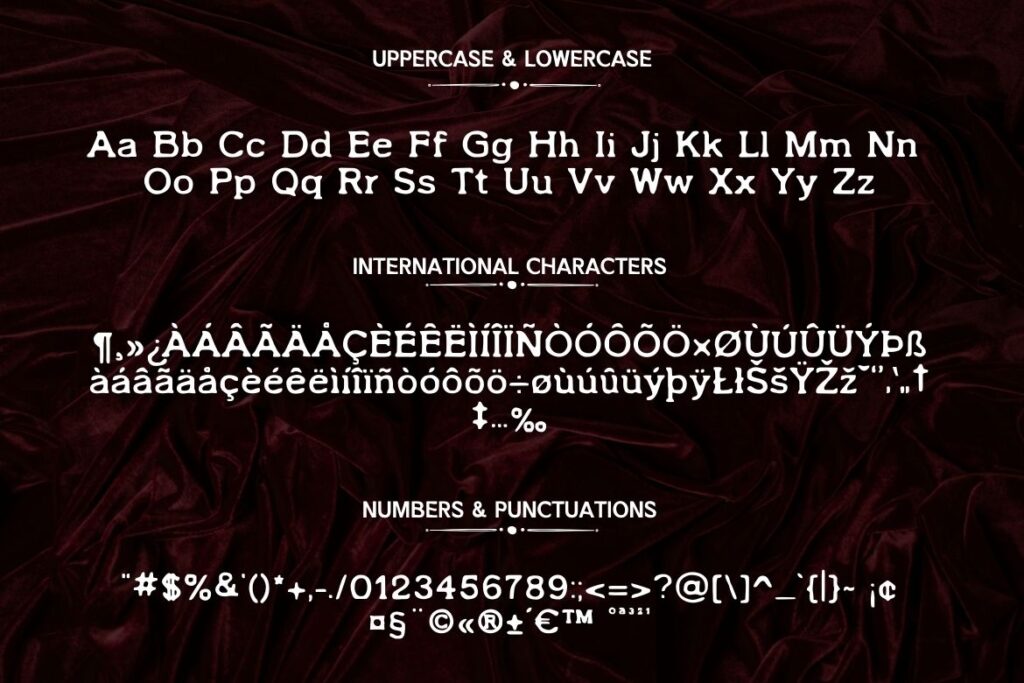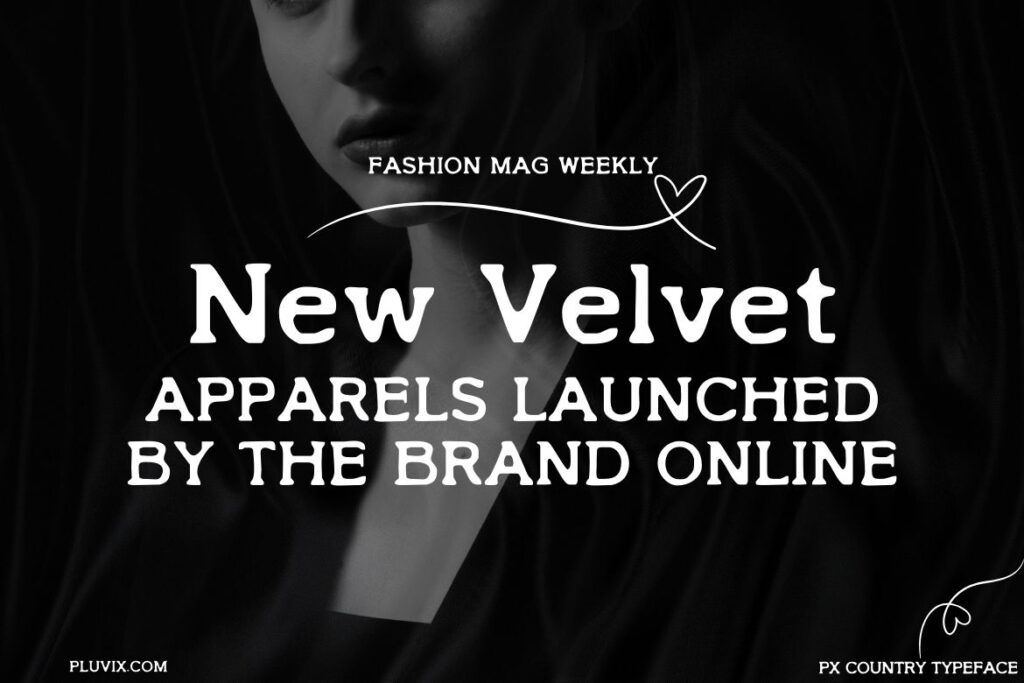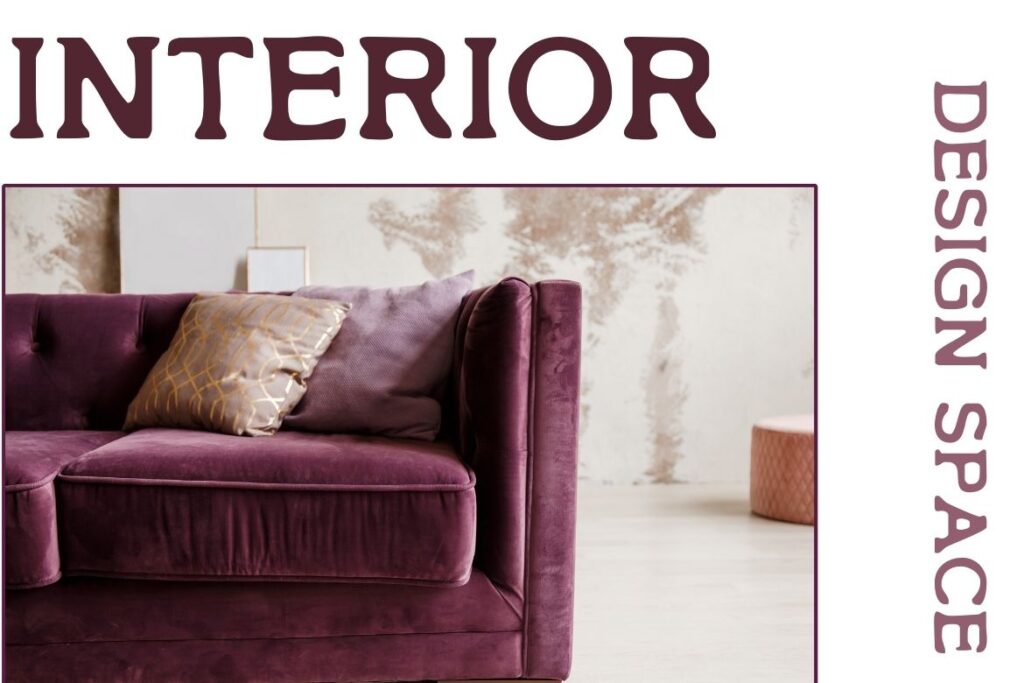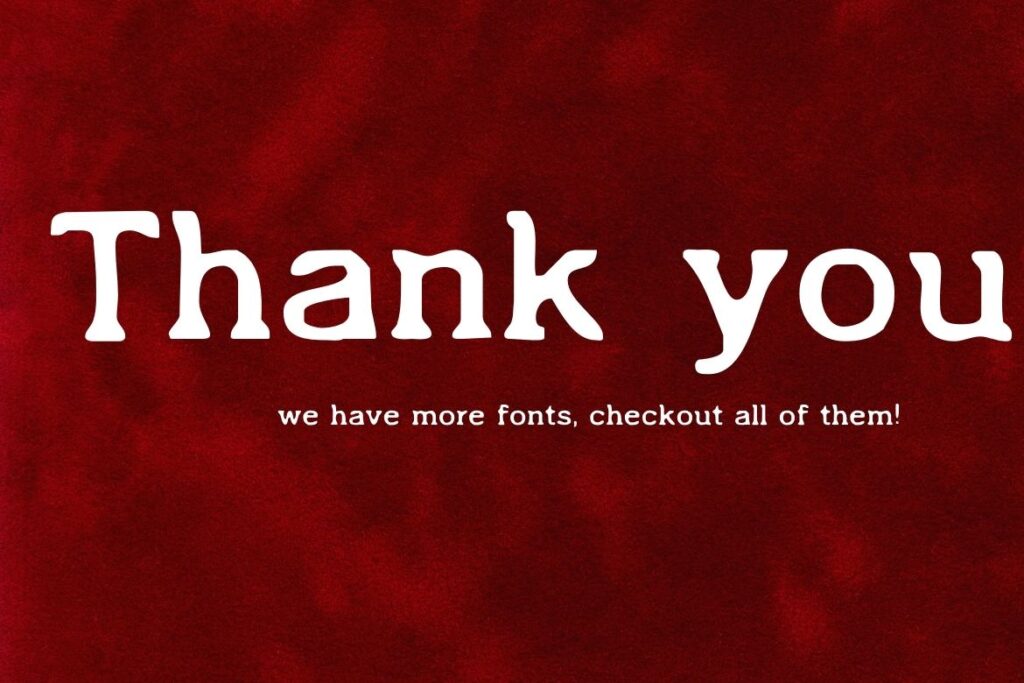
PX Country Typewriter Font
Introducing PX Country Typewriter Font displayed on a rich red velvet background with bold typewriter-inspired letters.
PX Country Typewriter Font is a practical and bold typeface inspired by vintage typewriters. Its clear and slightly rugged letters give your designs a straightforward, timeless feel. This font is great for various projects, including branding, blogs, headers, and creative layouts, adding a clean and easy-to-read style.
With uppercase and lowercase letters, numbers, punctuation, and full international character support, PX Country Typewriter Font is a reliable choice for both personal and professional designs. Whether you’re creating wedding invitations, posters, or product packaging, its versatile design adapts seamlessly to any project.
Where Can You Use PX Country Typewriter Font?
• Interior Design: Perfect for adding a bold and stylish look to layouts and design presentations.
• Fashion and Lifestyle: Highlight key messages or headlines in editorials and social media posts.
• Nature and Travel Projects: Bring a warm, vintage vibe to brochures, blogs, and promotional graphics.
• Posters and Banners: Stand out with bold titles and a clean, eye-catching look.
• Personal and DIY Projects: Ideal for creative tasks like scrapbooking, cards, or journals.
The words 'Explore Nature' written in PX Country Typewriter Font, placed over a vibrant green fern background.
Complete character set of PX Country Typewriter Font including uppercase, lowercase, international characters, numbers, and punctuation on a dark velvet background.
A headline in PX Country Typewriter Font reading 'New Velvet Apparels Launched by the Brand Online' over a black and white image of a model.
"The word 'Interior' in PX Country Typewriter Font above a modern purple couch with a clean and minimal layout."
"The phrase 'Thank You' in PX Country Typewriter Font on a deep red textured background with a note encouraging users to check out more fonts."